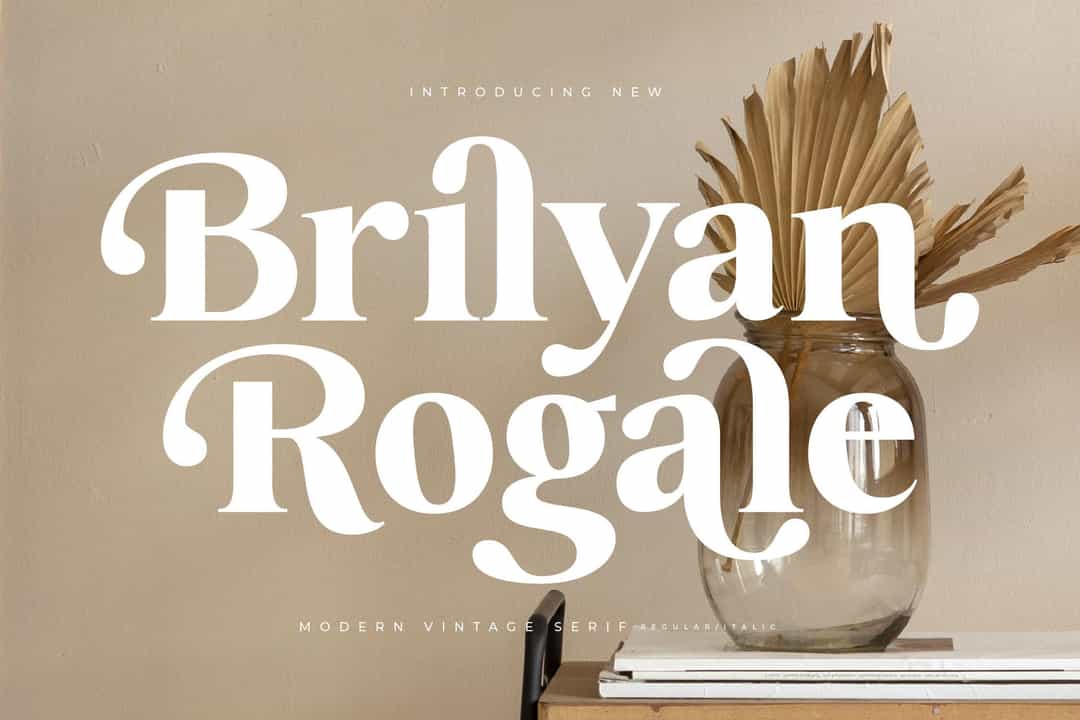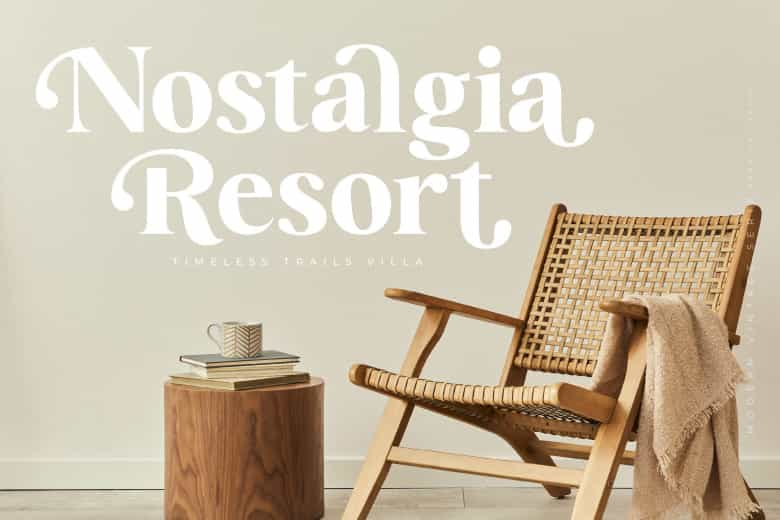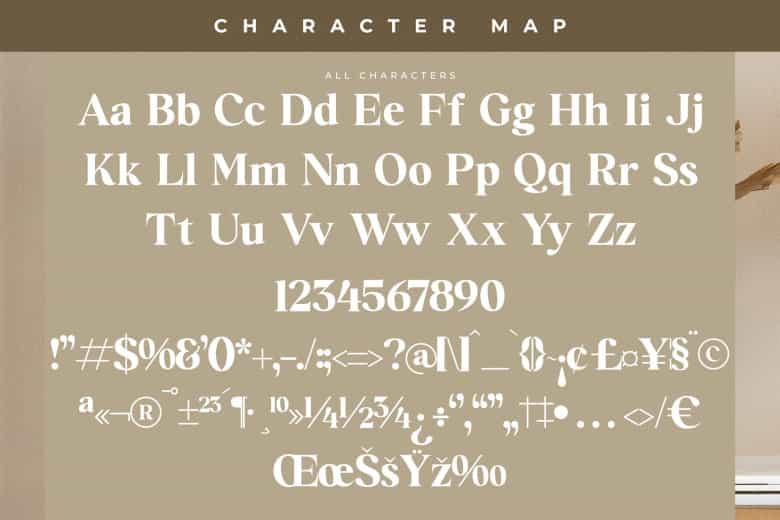
Brilyan Rogale is a stunning serif font that captures attention with its allure and elegant design. Designed to convey grandeur, its majestic serifs and intricate elements exude sophistication. Enhance your creations with the timeless grace of Brilyan Rogale, a font that demands notice and embodies style.